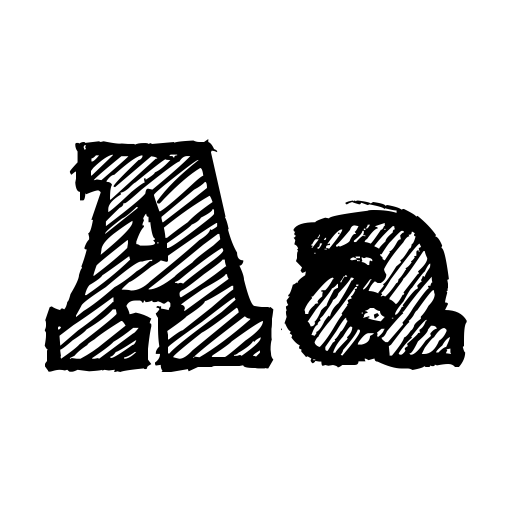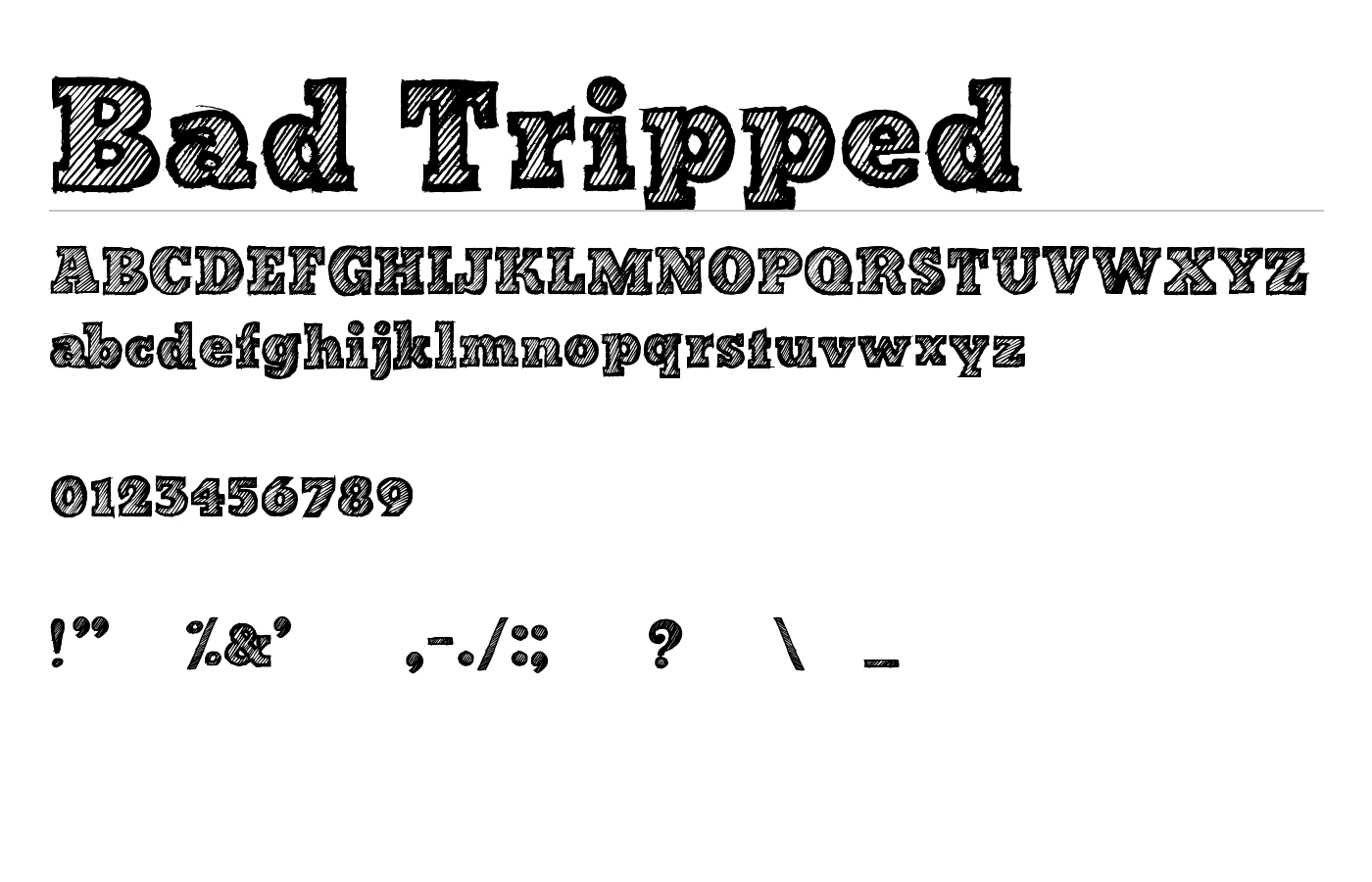
Bad Tripped is a bold slab serif font with a playful, hand-sketched texture that gives it a casual yet strong character. Its thick, blocky letterforms combined with a rough, crosshatched fill make it ideal for eye-catching headlines and creative designs that want to convey a quirky, vintage, or handcrafted vibe. This font works well for posters, packaging, and branding where a bold and approachable style is needed to stand out.
Bad Tripped Font
About Bad Tripped Font